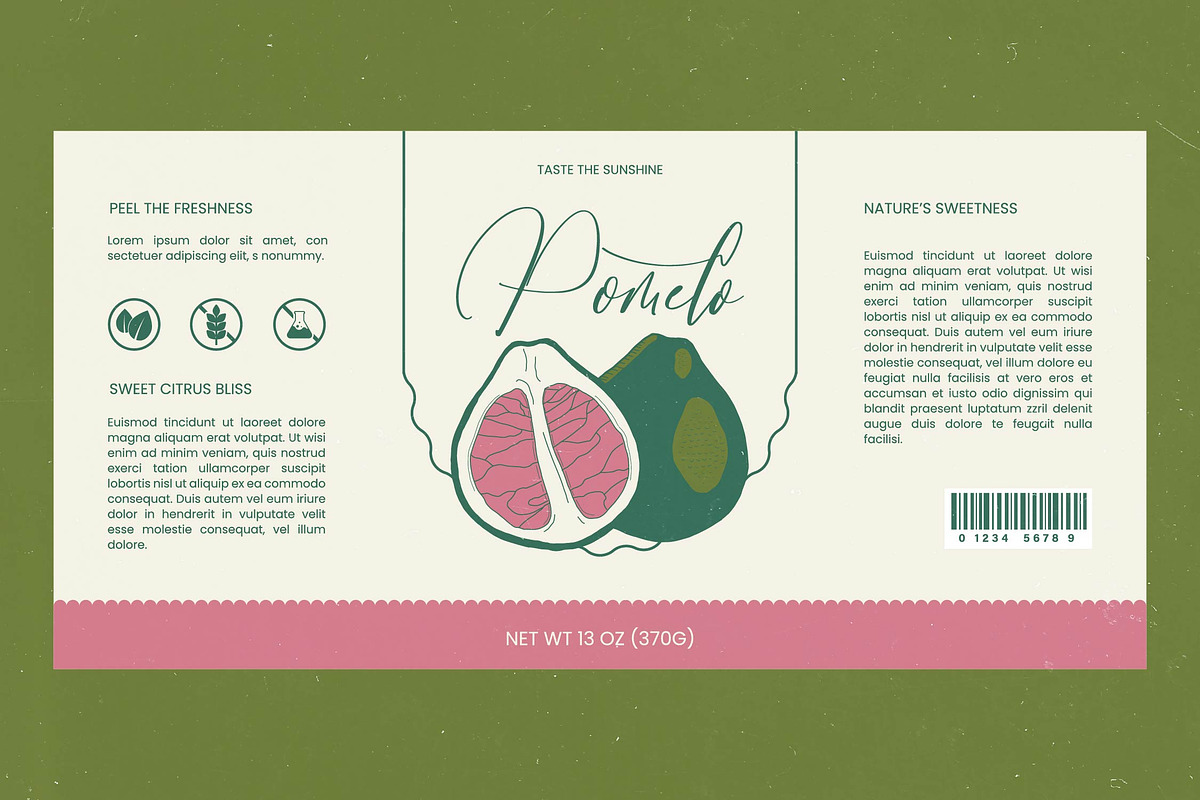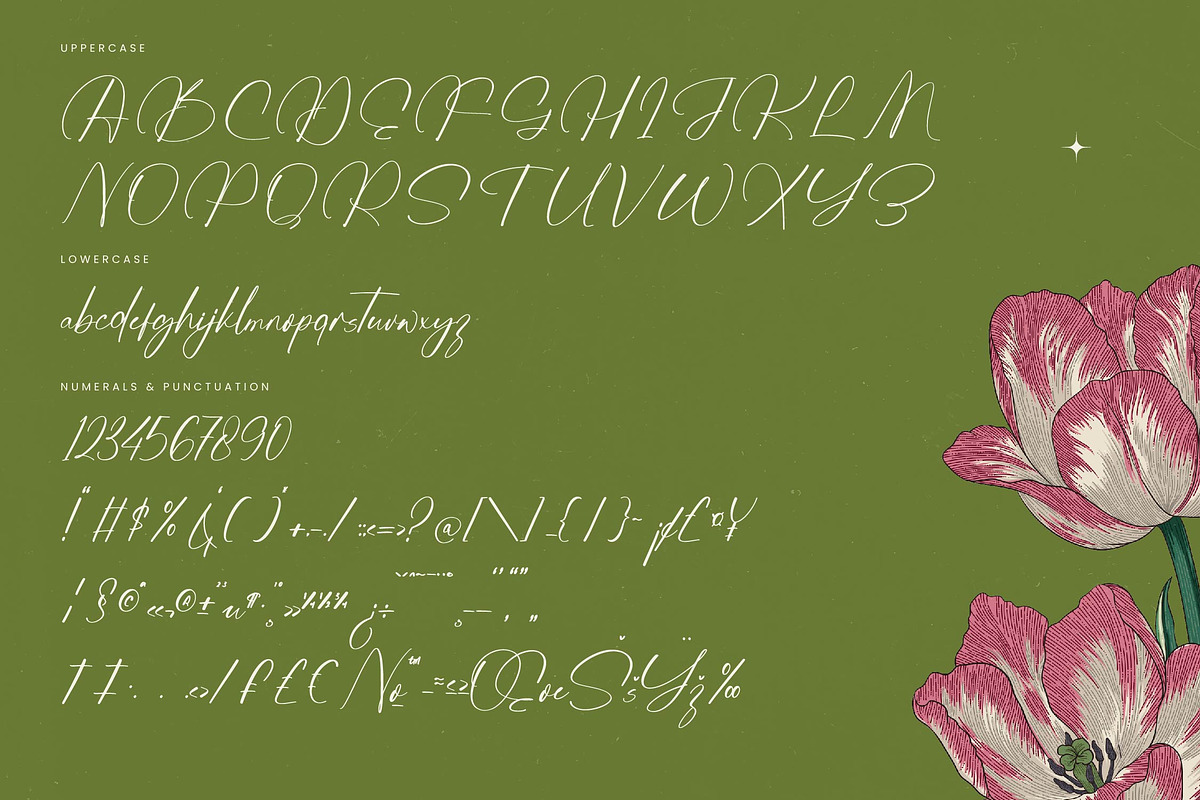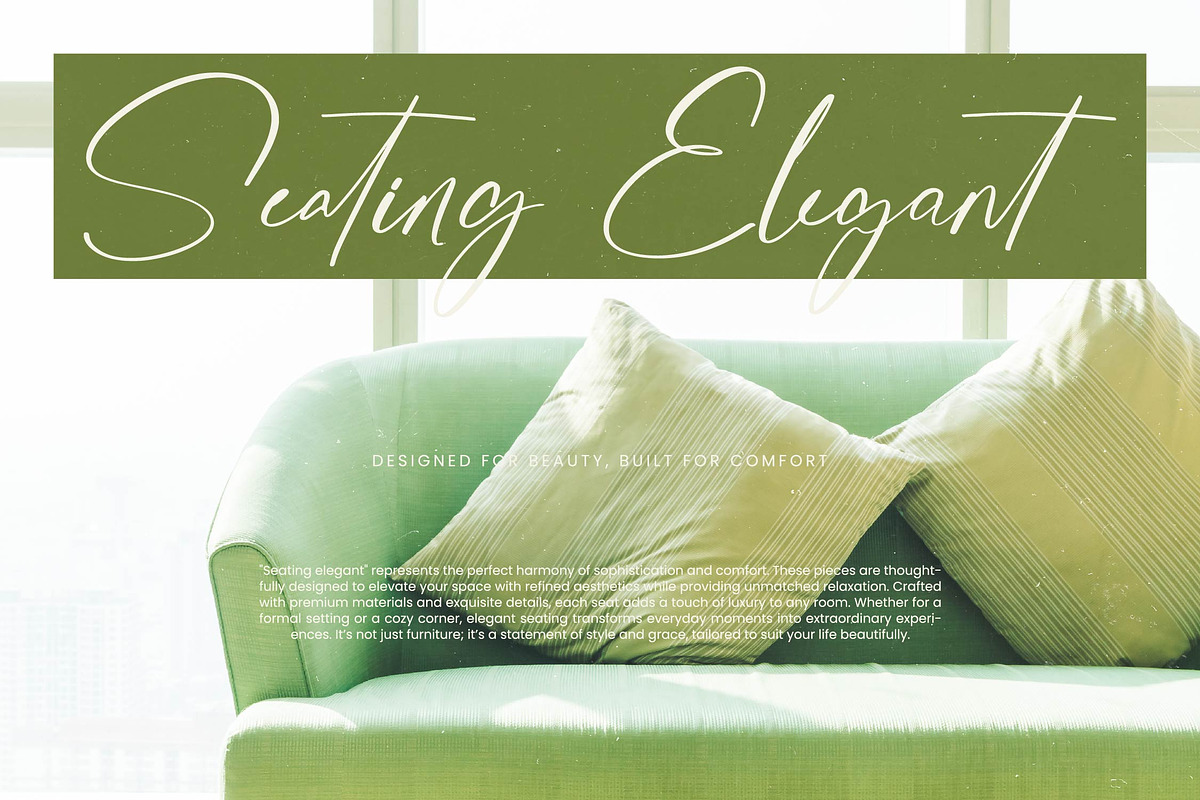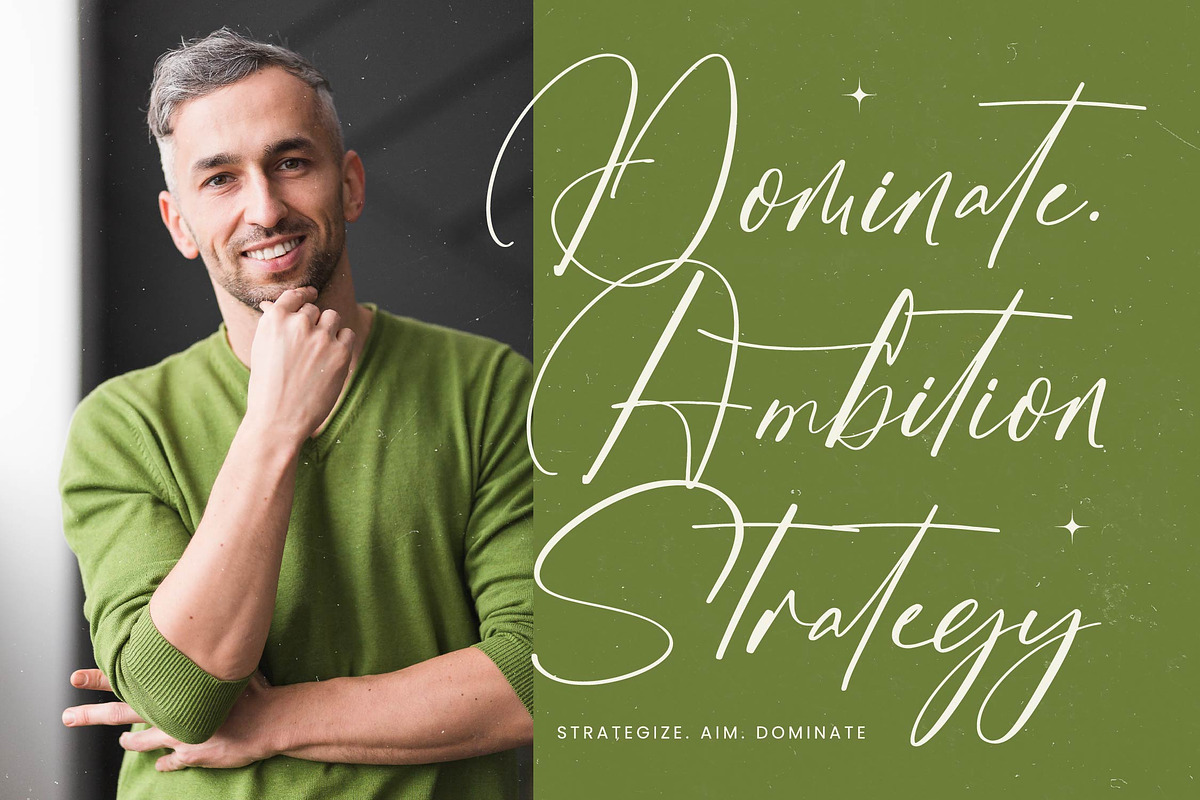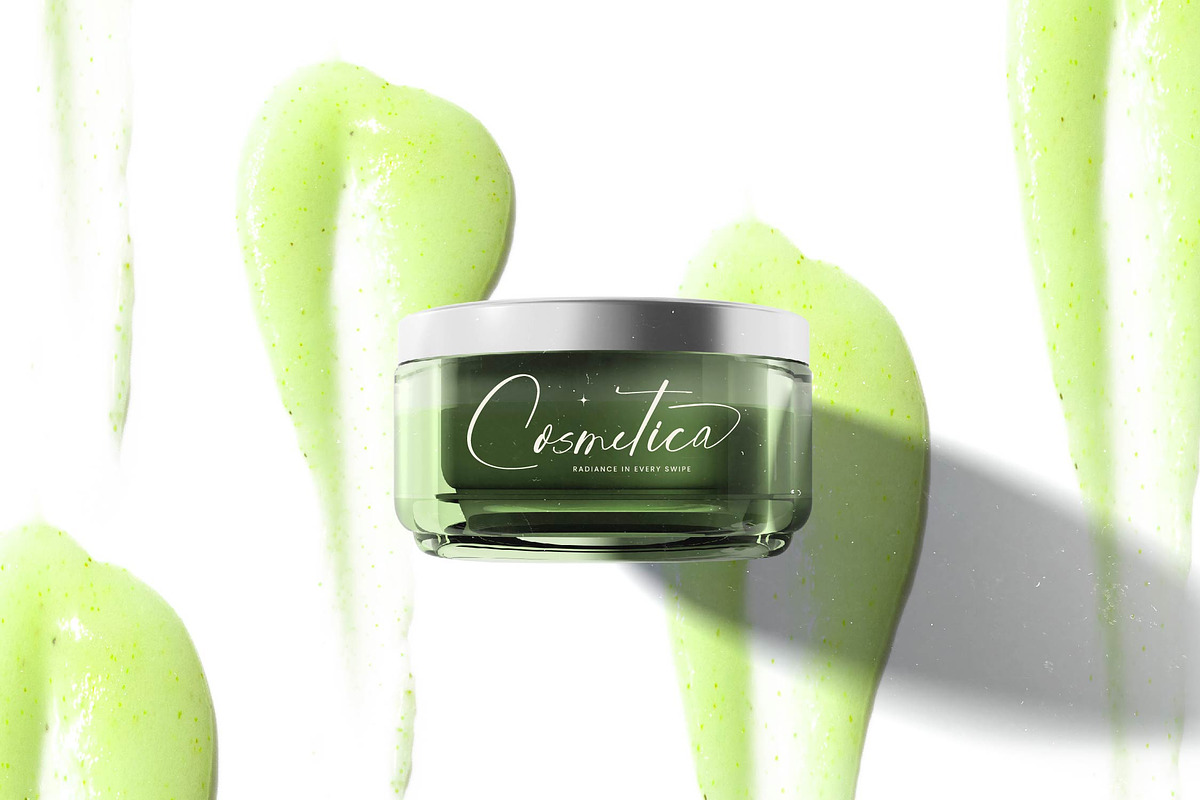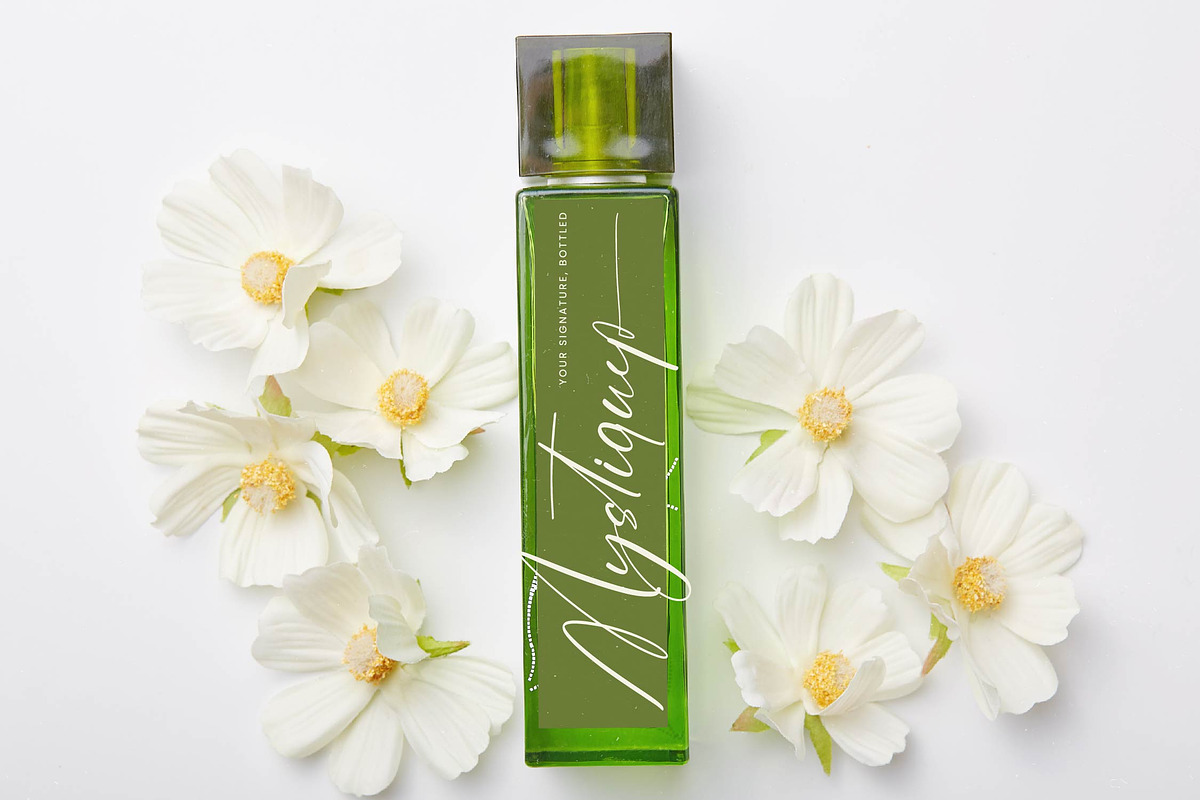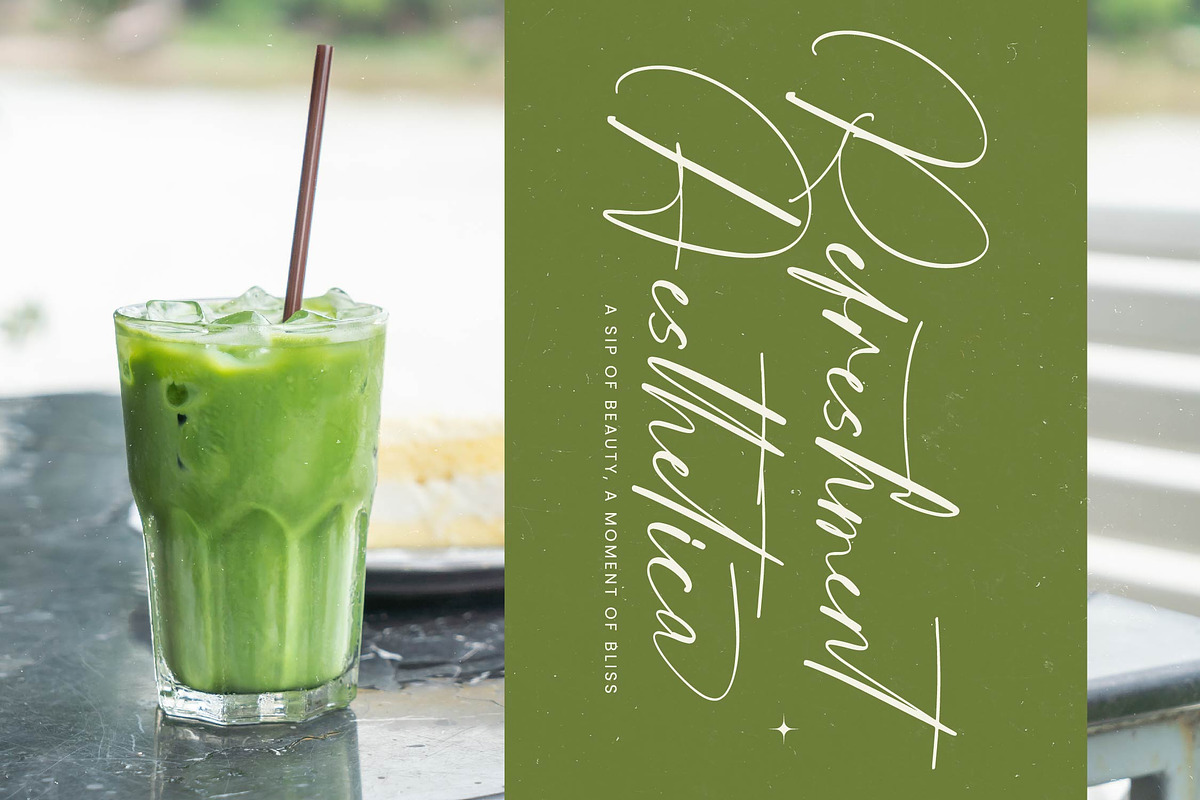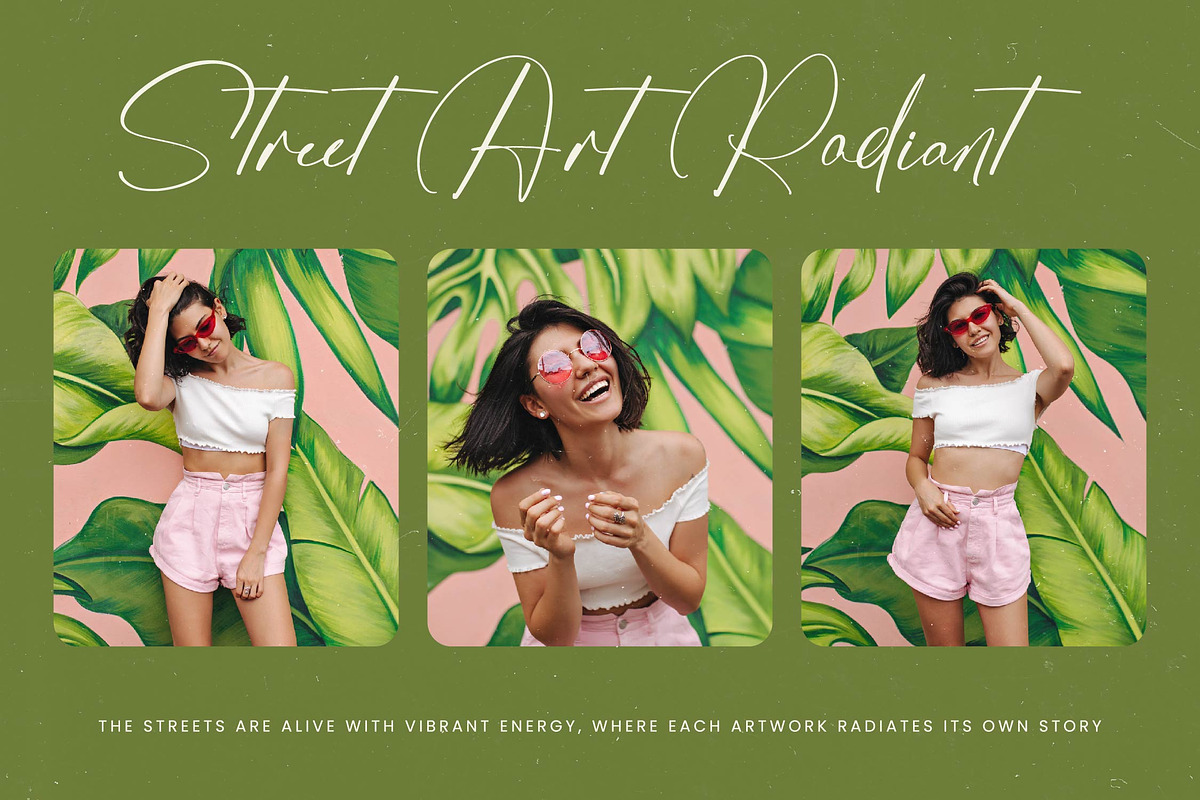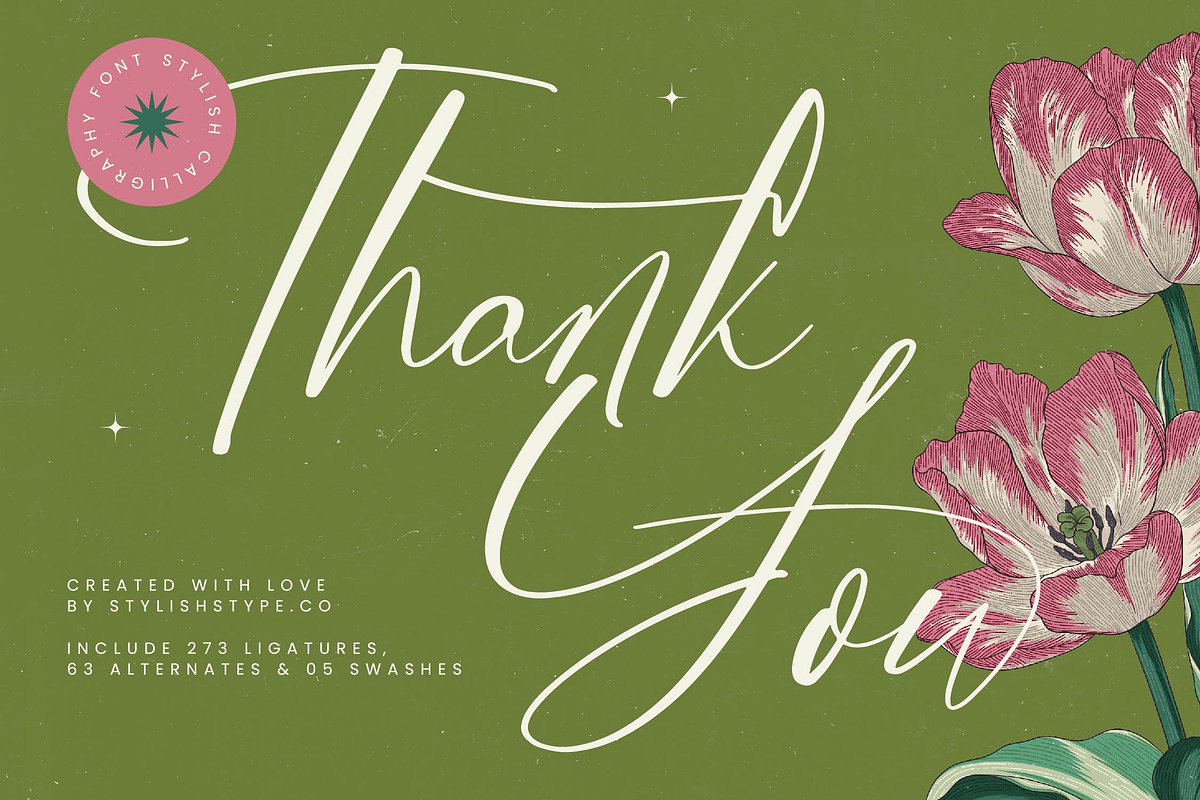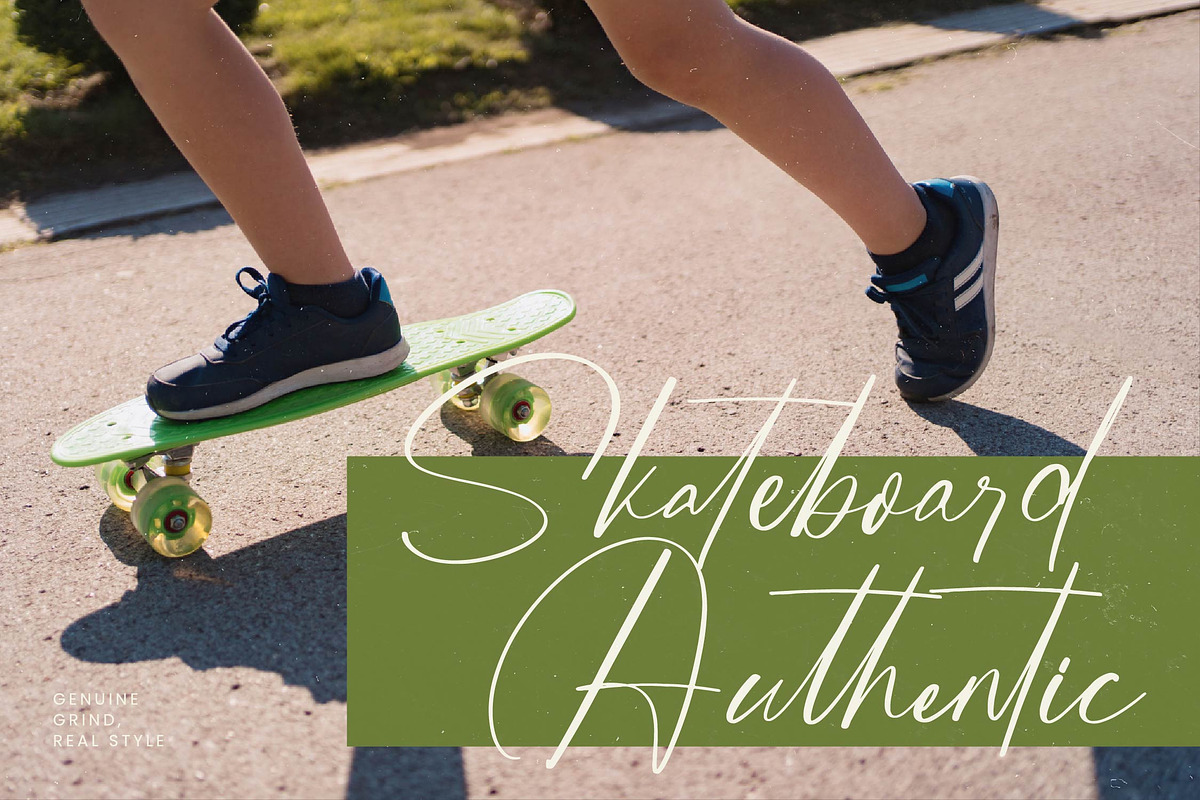
Josephine Octavia Stylish Font
Josephine Octavia - Stylish Calligraphy Font , from Stylishtype.Co , Suitable for any projects such as: logos, branding projects, homeware designs, product packaging, mugs, quotes, posters, shopping bags, t-shirts, book covers, name card, invitation cards, greeting cards, label, photography, watermark, special events, and all your other luxury and beautiful projects that need a Luxury Script taste.
- 273 Ligature 63 Alternates & 05 Swashes